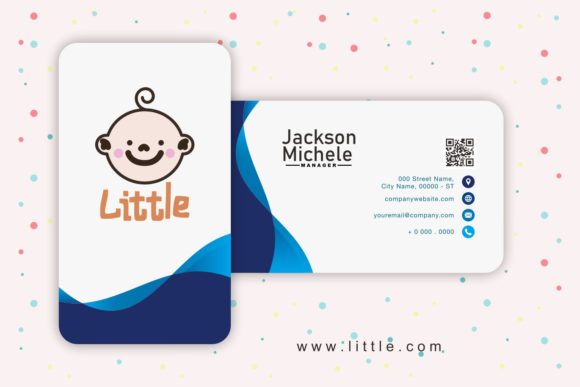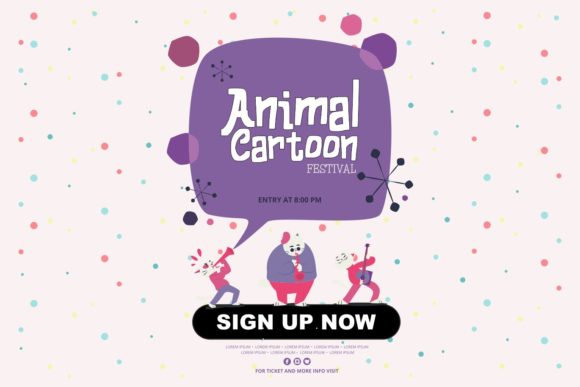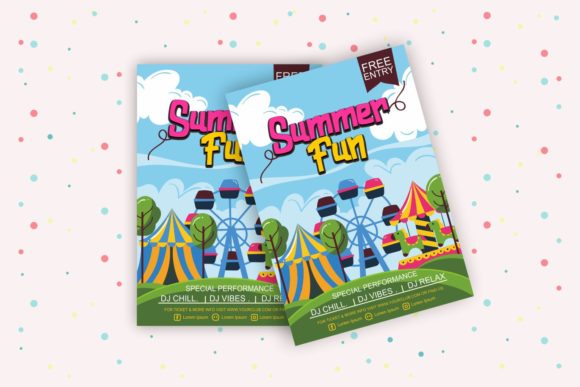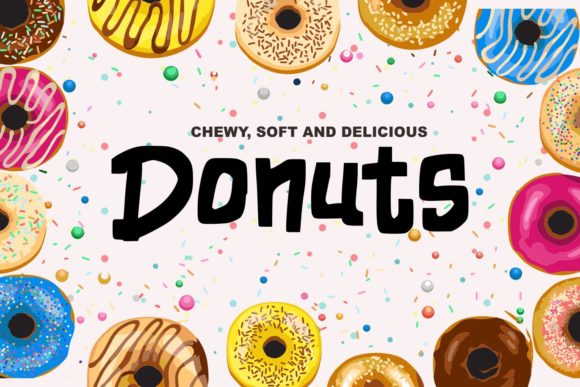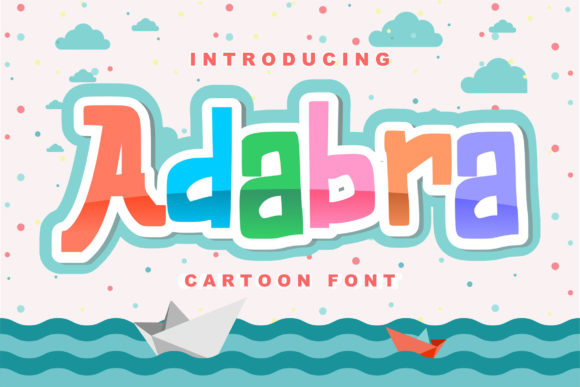
The Whimsical World of Adabra Font: A Designer’s Delight
I’ll never forget the moment I stumbled upon Adabra Font while working on a quirky craft project for a client. I was on a mission to find the perfect font to match the playful vibe of the design, but everything I tried seemed too bland or overused. That’s when I discovered Adabra – a sweet, decorative font that’s a bit kooky and weird, just like I needed. In this article, I’ll share my experience with Adabra, its unique features, and how to make the most of it in your designs.
An Honest Review of Adabra Font
What I Love About Adabra ✨
- Its whimsical and playful personality, perfect for crafty projects and designs that need a bit of character ✅
- The range of OpenType features, including glyphs and stylistic alternates, that allow for endless customization 🔍
- Its ability to add a touch of personality to any design, from invitations to social media graphics 📱
- The font’s unique and quirky feel, which sets it apart from more traditional decorative fonts 🎉
- Some letters may require manual kerning to achieve optimal spacing ⚠️
- It may not be the best choice for body text or long-form content, as it’s primarily designed for display purposes 📄
- Limited use on very small font sizes, as some details might get lost 🔎
The Story Behind Adabra Font
Adabra Font was designed with the intention of creating a unique, eye-catching font that’s perfect for crafty projects and designs that need a bit of personality. The designer aimed to create a font that’s both playful and elegant, making it suitable for a wide range of applications. While the real story behind Adabra may be unknown, its quirky charm and versatility have made it a favorite among designers and crafters alike.
| What is Adabra Font best used for? | Adabra Font is best used for crafty projects, social media graphics, invitations, and other designs that need a touch of personality. |
In conclusion, Adabra Font is a sweet decorative font that’s perfect for adding a whimsical touch to your designs. With its unique personality, range of OpenType features, and versatility across different platforms, it’s a great addition to any designer’s toolkit.